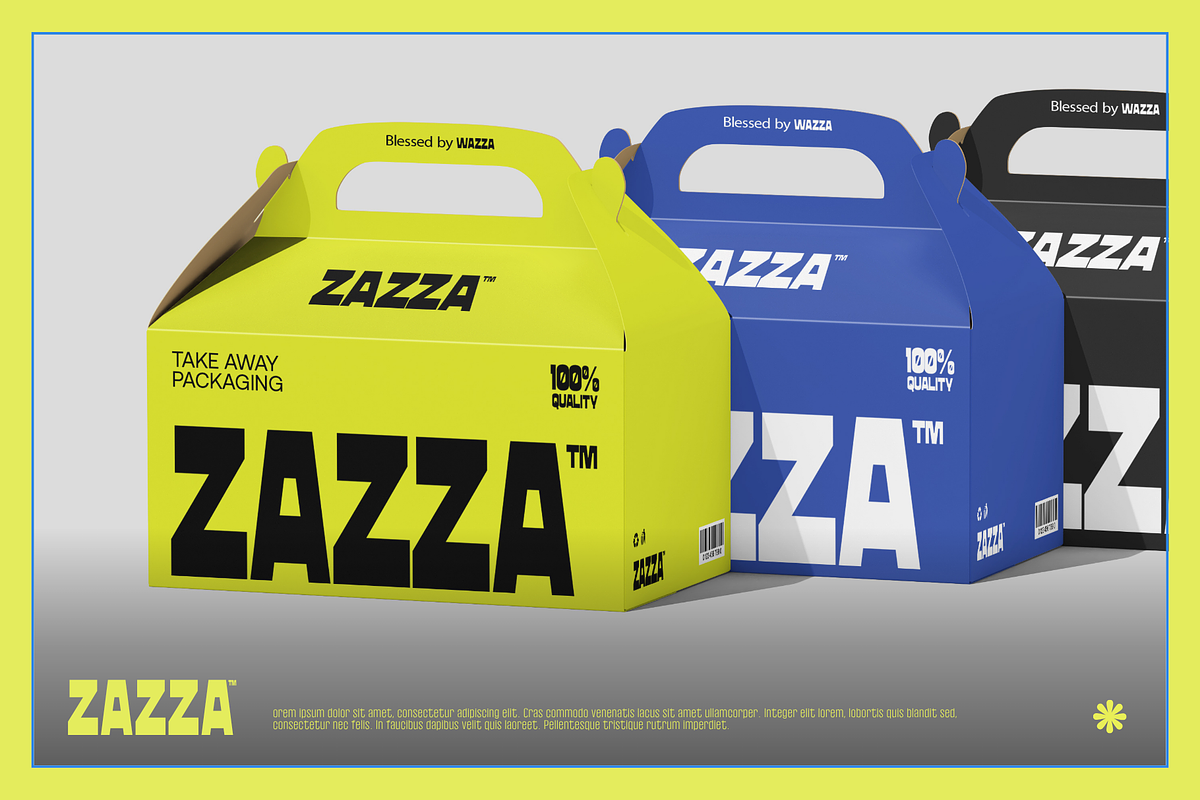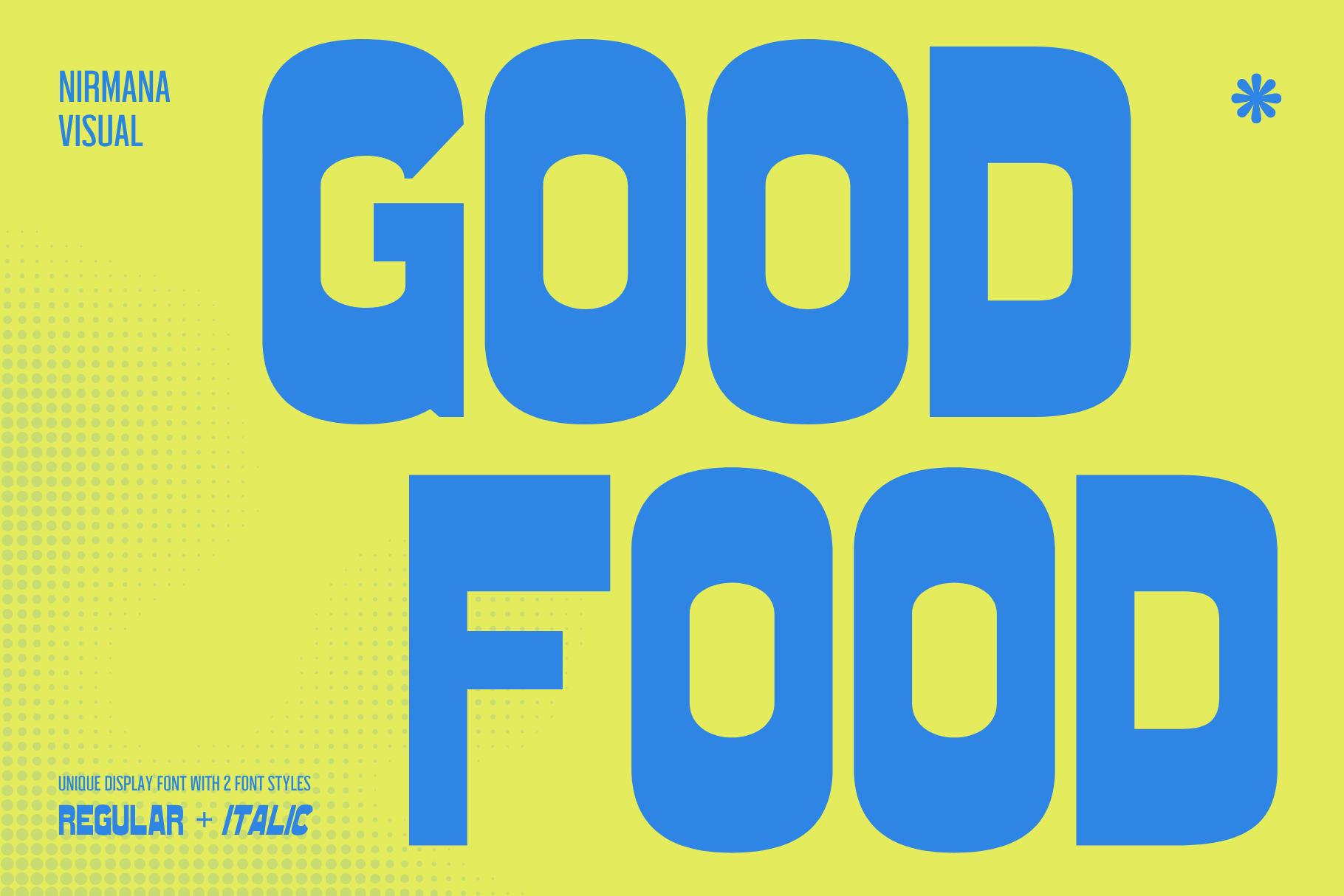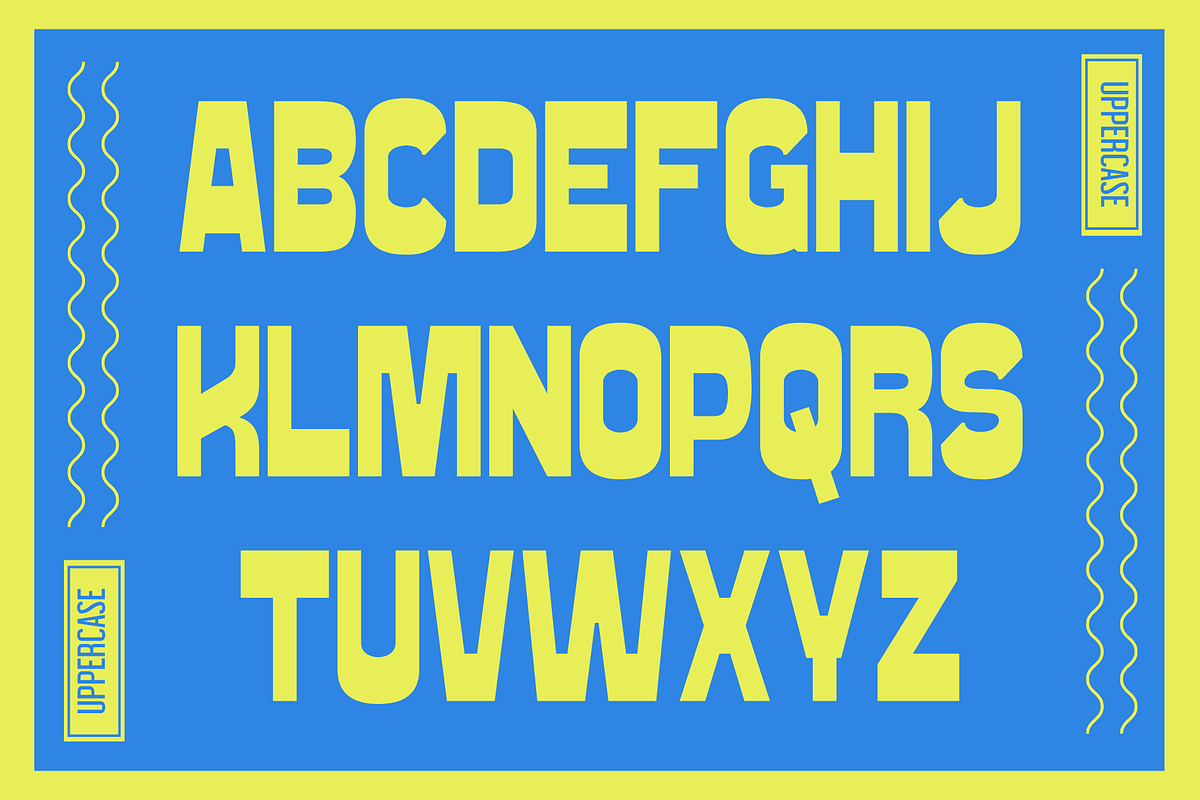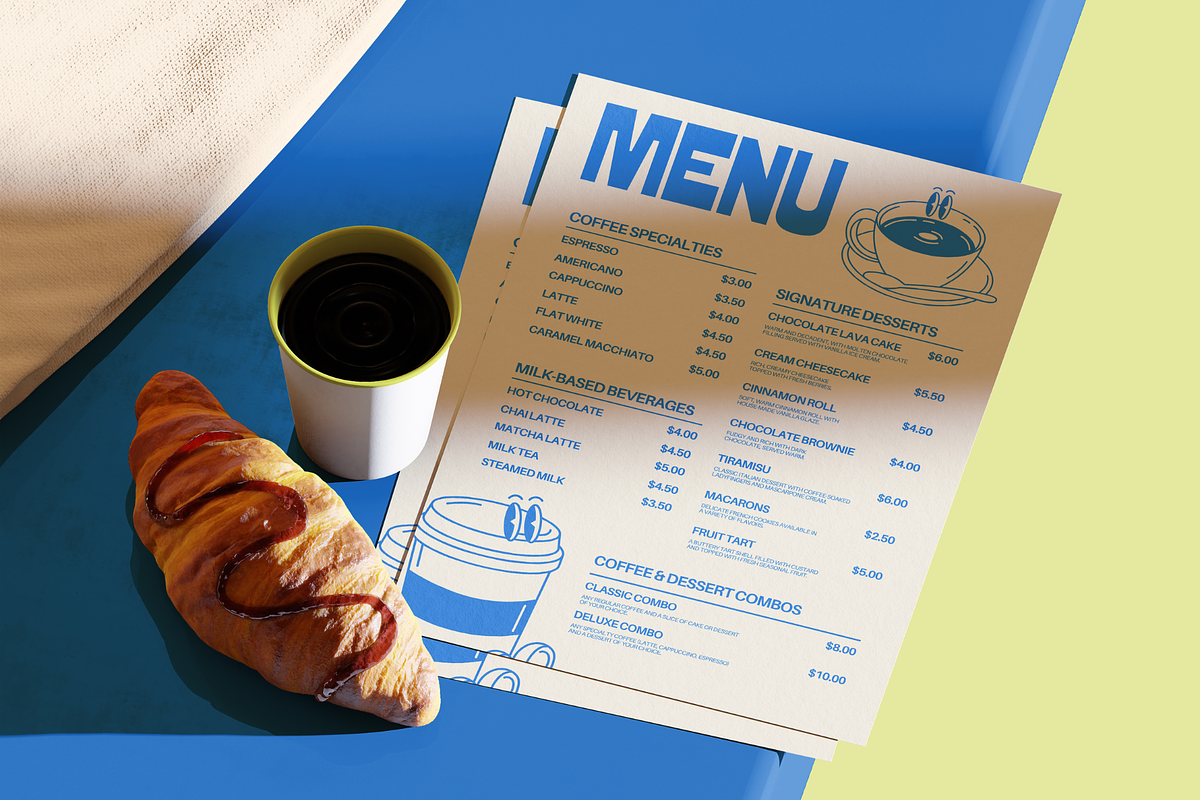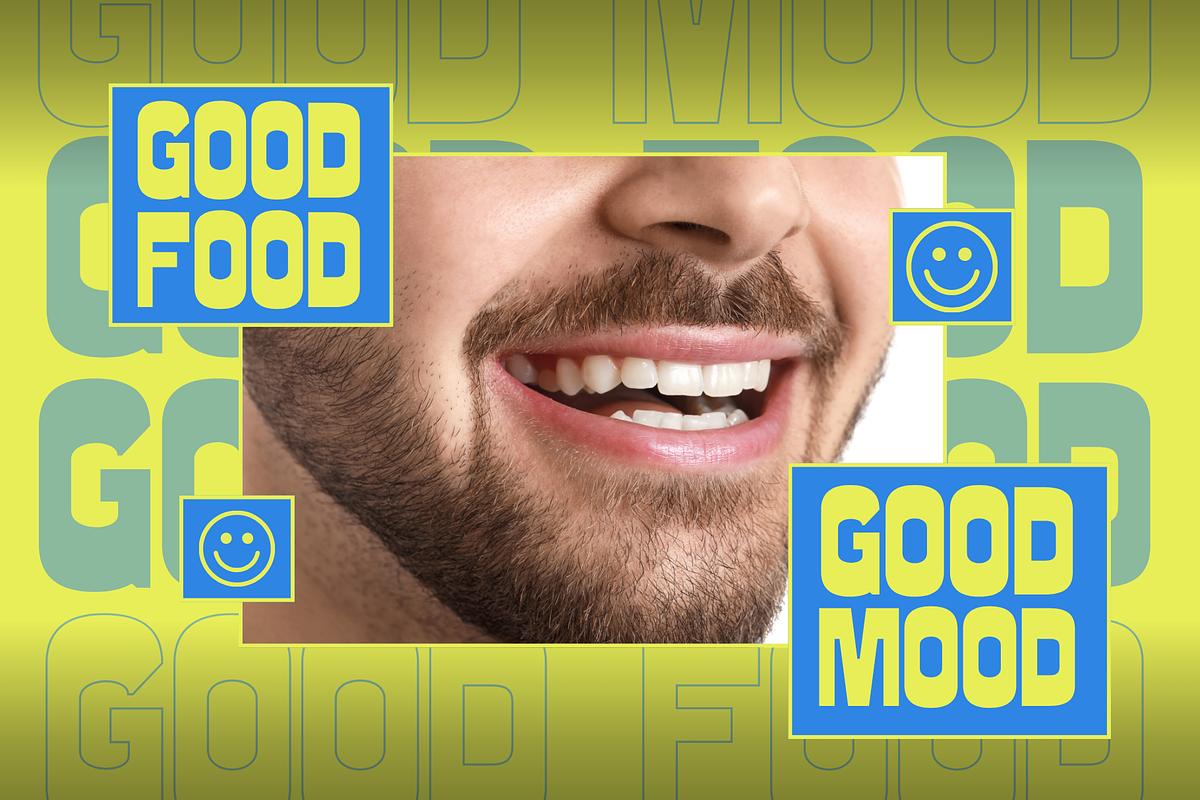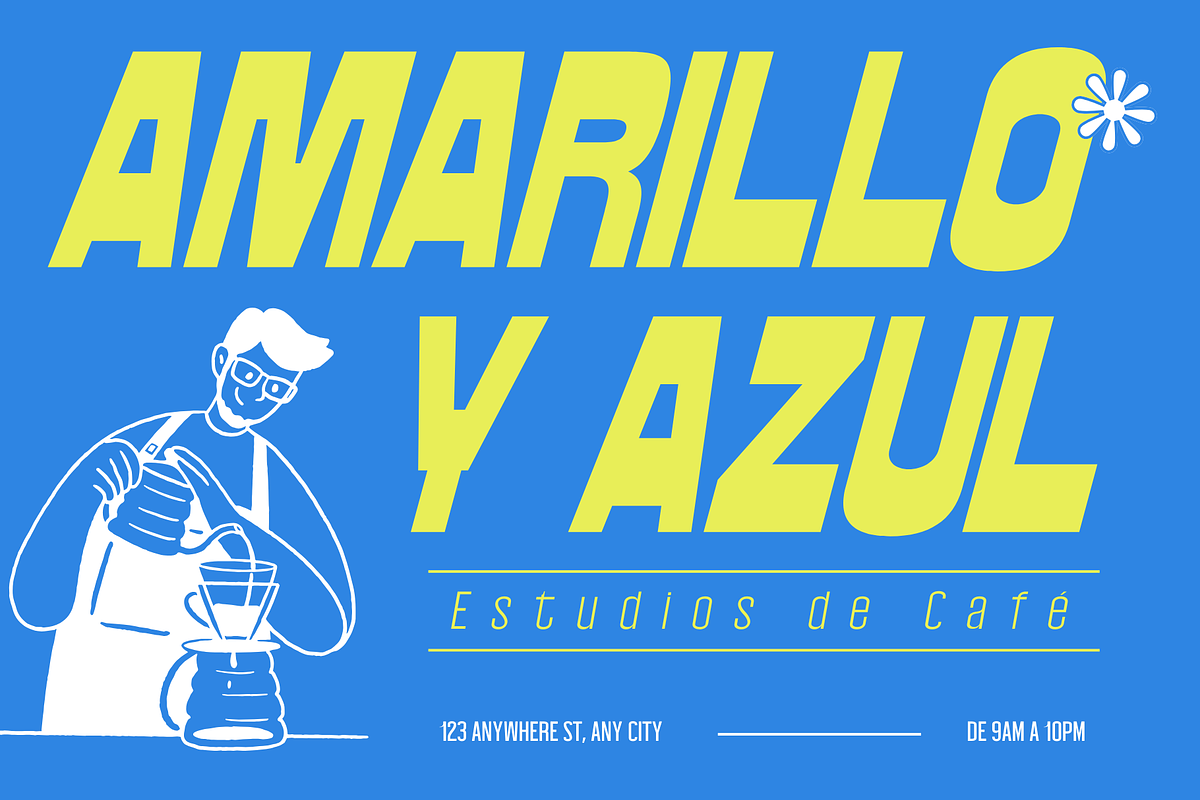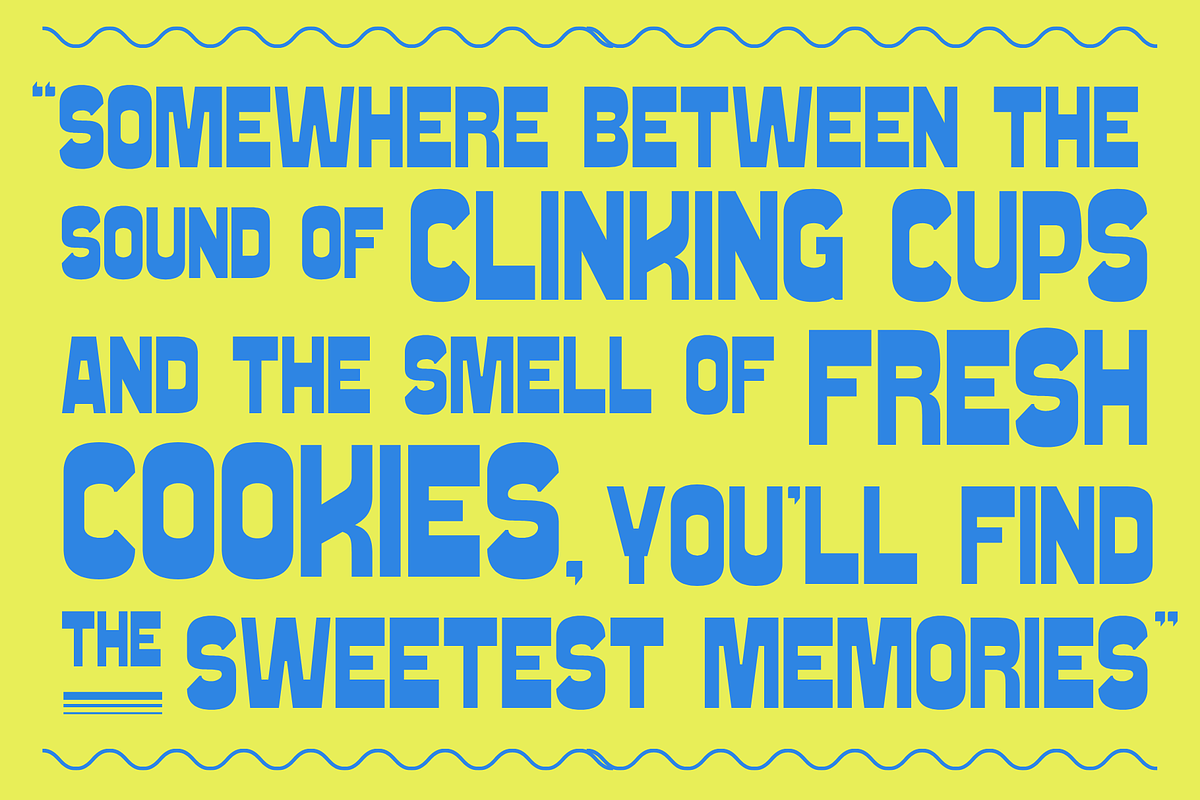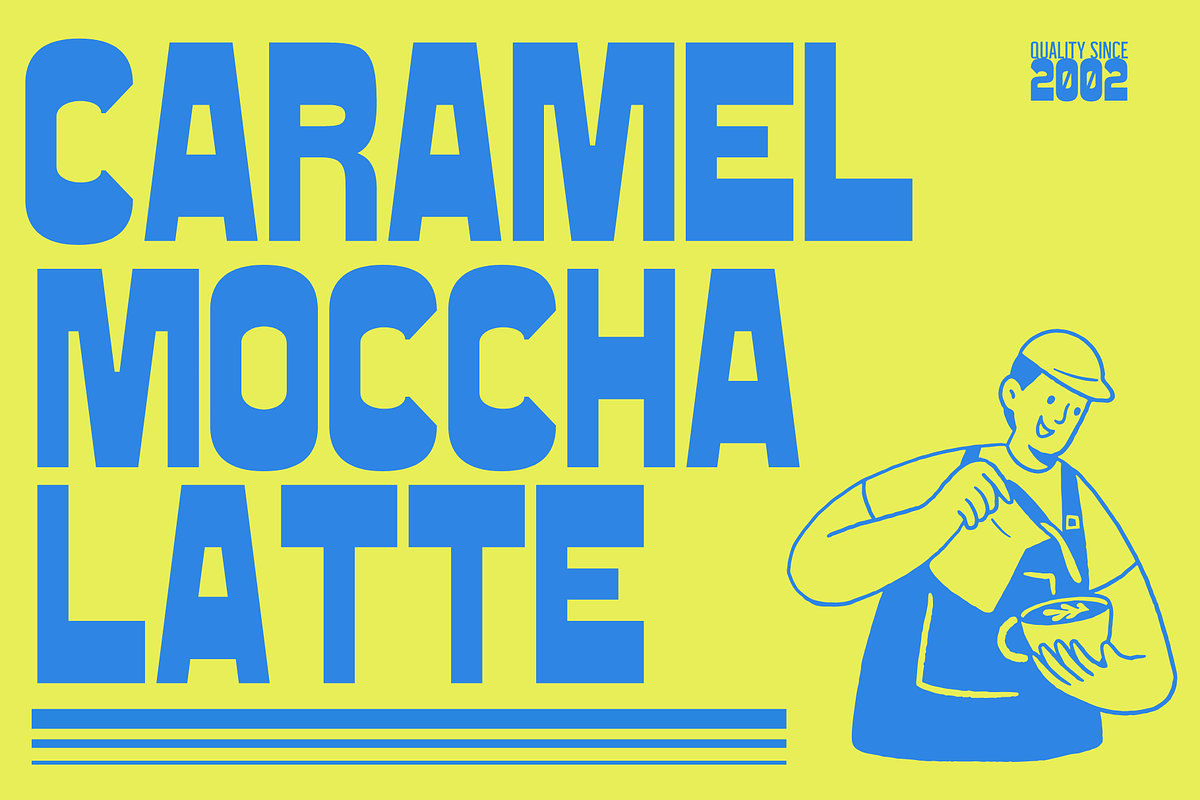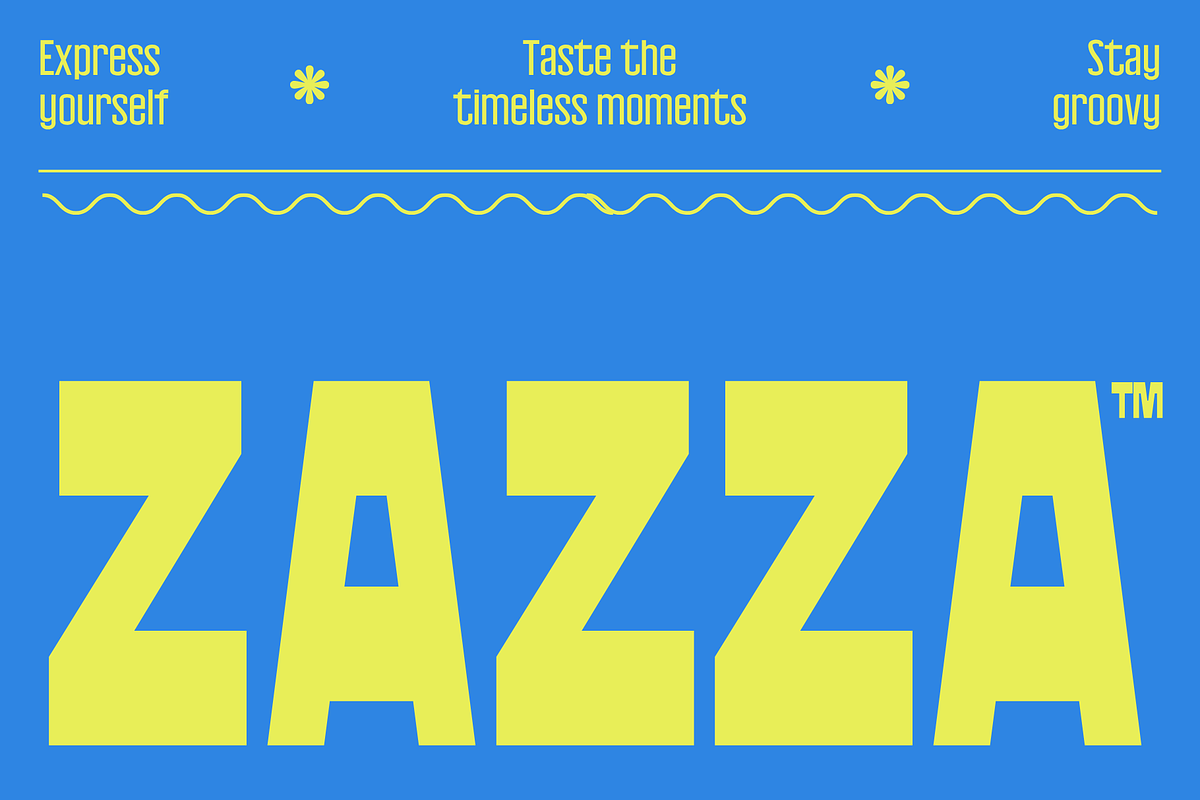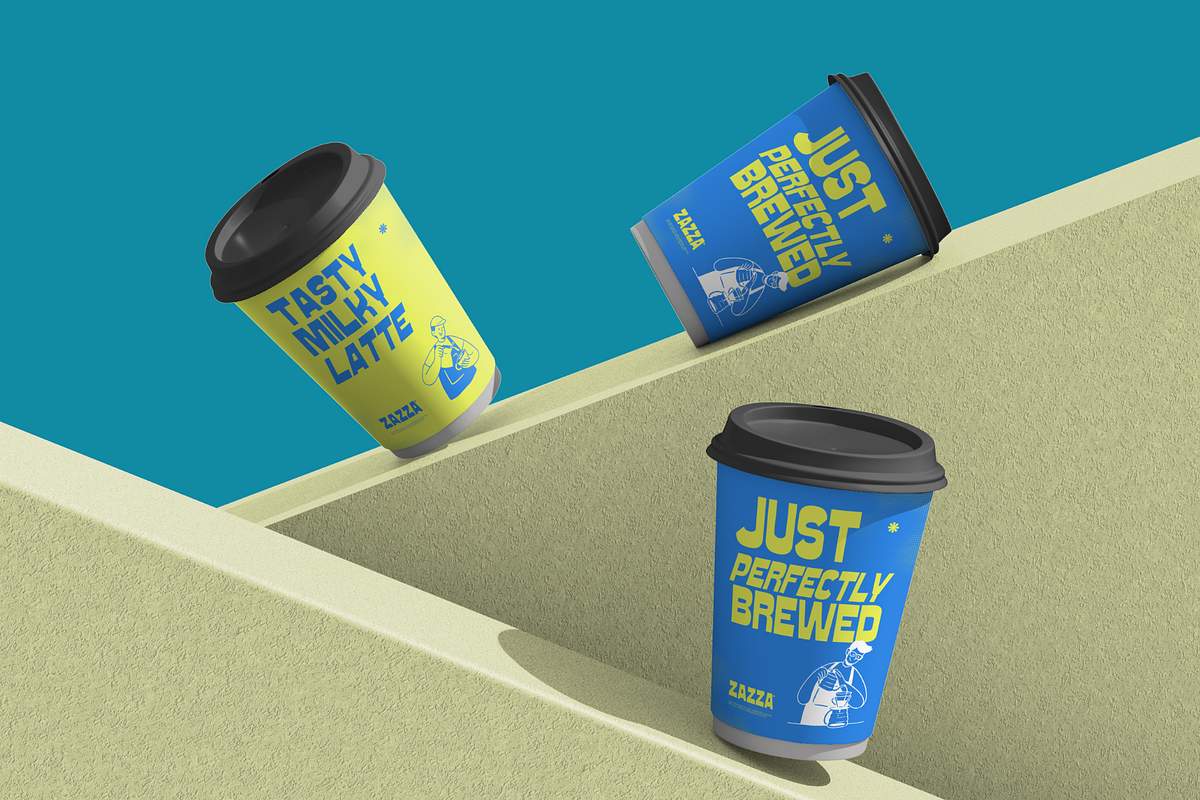
Good Food - Branding Food Logo Font
Good Food is a playful and appetizing font designed perfectly for food logos, restaurant branding, and packaging. Its smooth curves and friendly letterforms create a warm, delicious impression that instantly attracts attention. Ideal for bakery signs, café menus, and snack packaging, Good Food brings a fresh and tasty personality to every design. Available in regular and italic style, it adds flavor and creativity to any food-related brand.